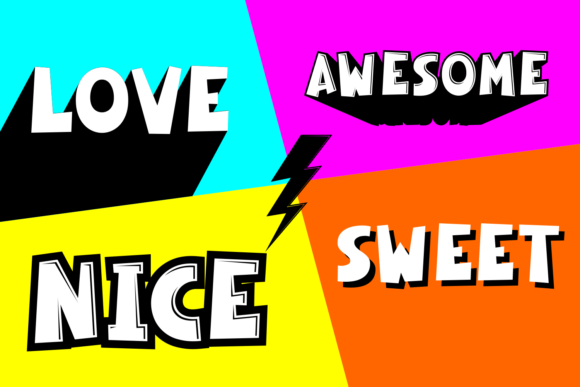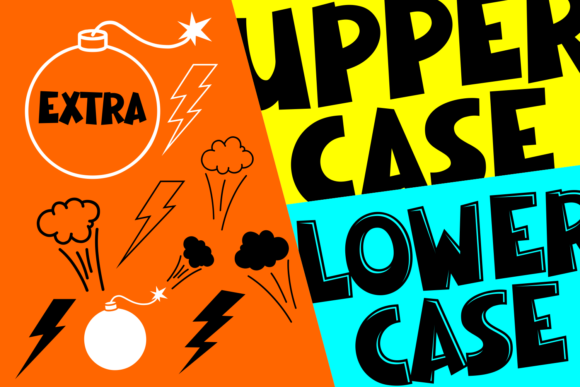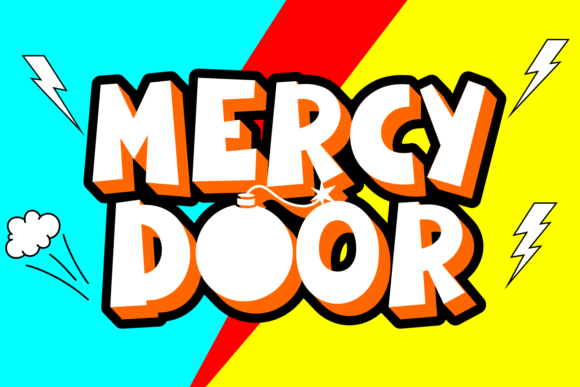
Introduction to Mercy Door Font
The Mercy Door is a striking display font.
It has a fun and striking look in a cartoon style which can be used to create unique designs which need to stand out .
Why Choose Mercy Door Font?
Mercy Door Font offers exceptional quality and versatility, making it a valuable addition to your design toolkit. Whether you’re creating for personal projects or commercial use, Mercy Door Font delivers professional results.